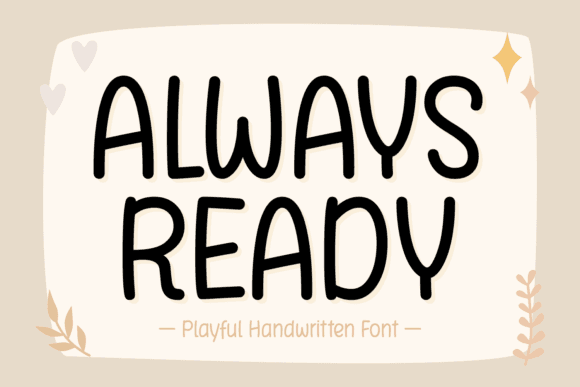
Always Ready is a strong, modern font optimized for use with cutting machines and printable design platforms. It features crisp lines and well-spaced characters, ideal for high-visibility projects like signage, t-shirts, and labels.
This font entity balances function and flair, ensuring professional results across both personal crafts and commercial design work. It’s especially effective for branding elements, product packaging, and creative digital assets.
Whether you’re crafting at home or designing for clients, Always Ready helps you deliver bold, polished results.
- Bold and modern with versatile styling
- Excellent readability for both print and cut
A: Always Ready is a bold, modern typeface designed for cutting machines, printable products, and digital crafts.
| Font Style | Modern bold sans serif | Rounded blocky print | Hand-drawn all-caps |